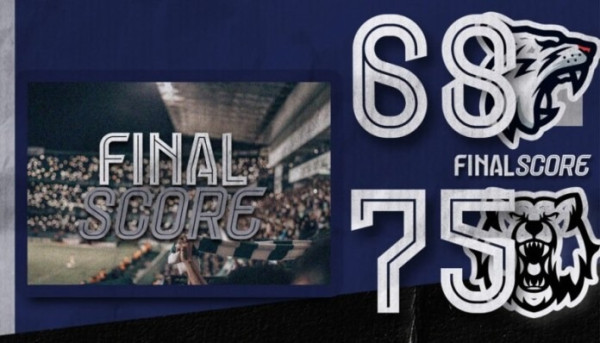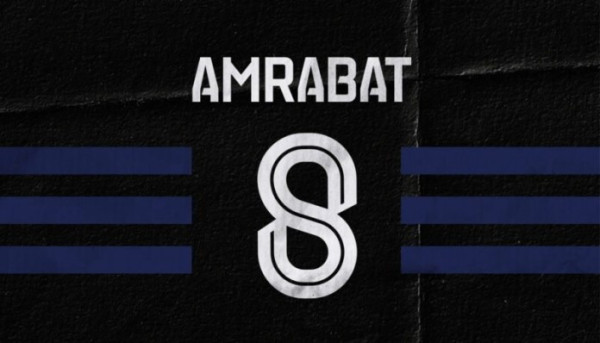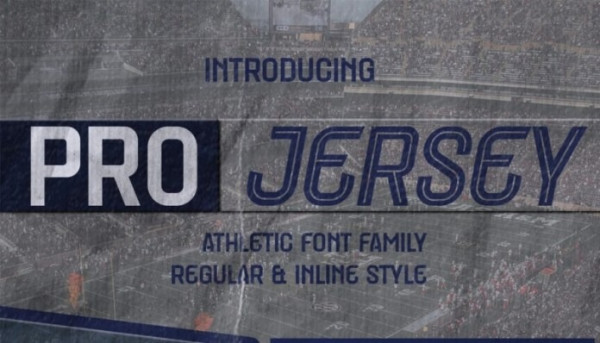
Pro Jersey Font
Pro Jersey Font is a grid based sans serif font with a clean professional feel. Pro Jersey has five Style with sans serif and matching italics. This typeface has a clean and athletic look, glyphs and extensive Latin script support. It is bold, vibrant with sharp sans serifs and competitive appearance, therefore excellent to use for headers, logos, captions and posters, especially for the sports branding industry, but just as good for any other projects.